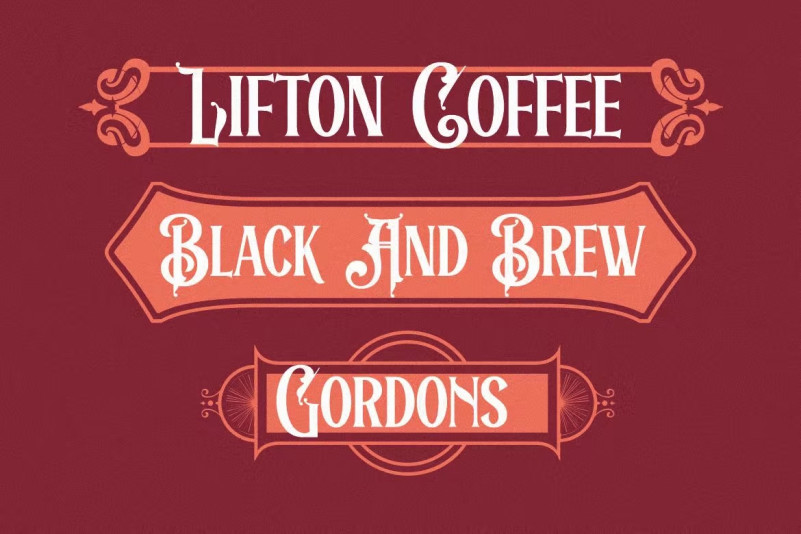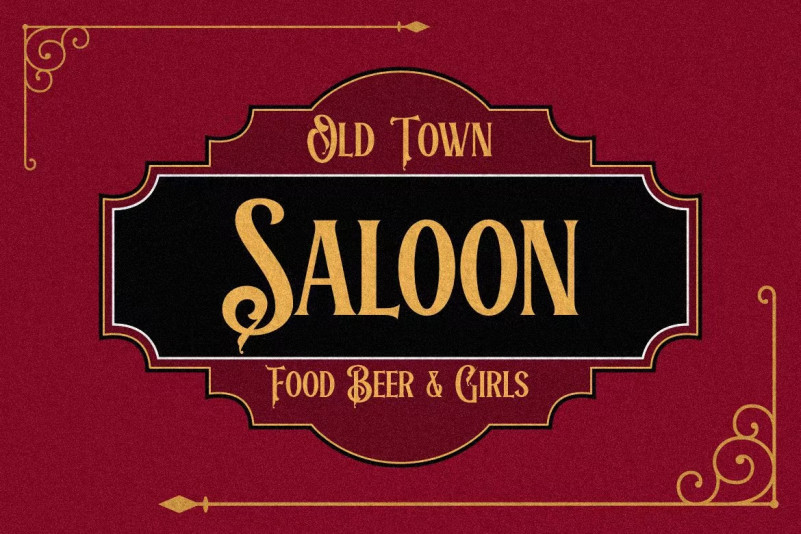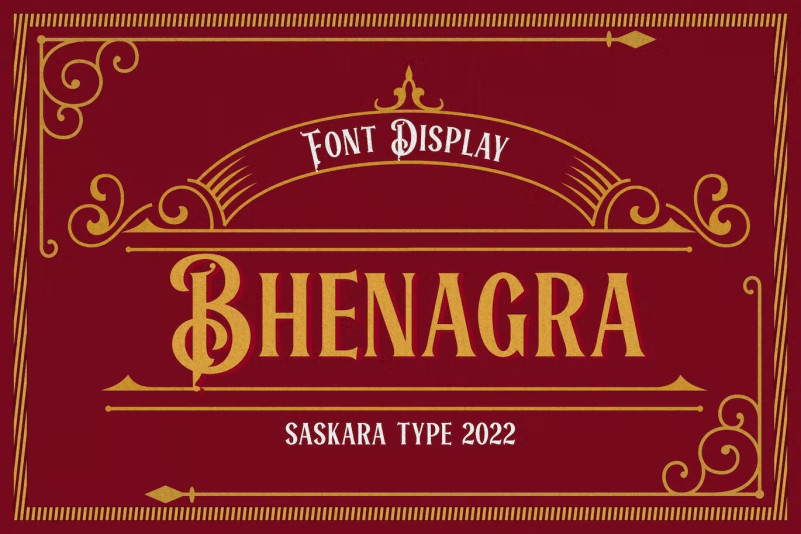
Bhenagra Font
How outstanding! Bhenagra Display Font is a vintage font inspired by 80s labels. This font is suitable for display posters, logo types, business cards, invitations and more.